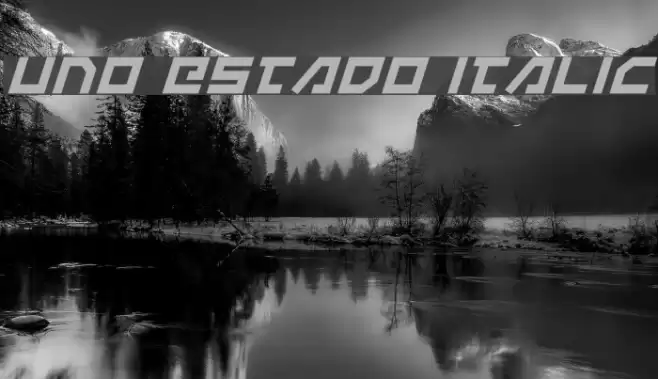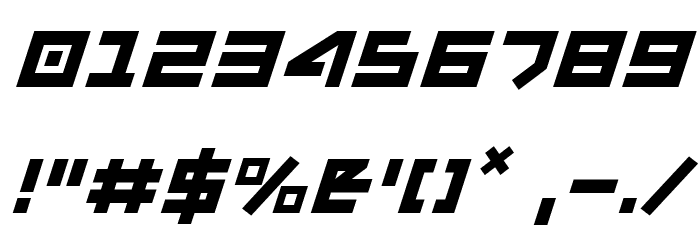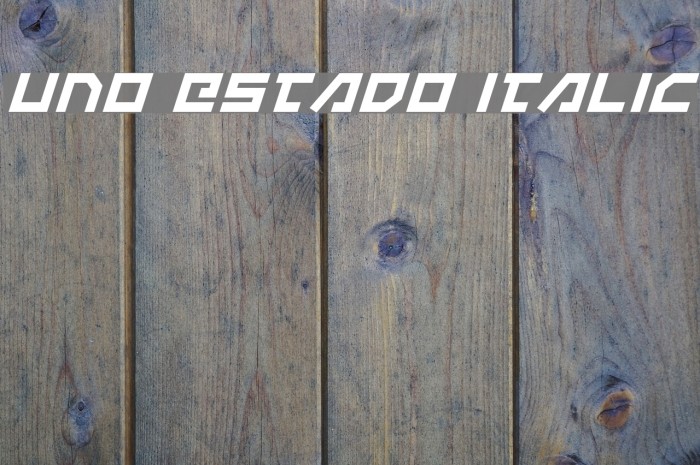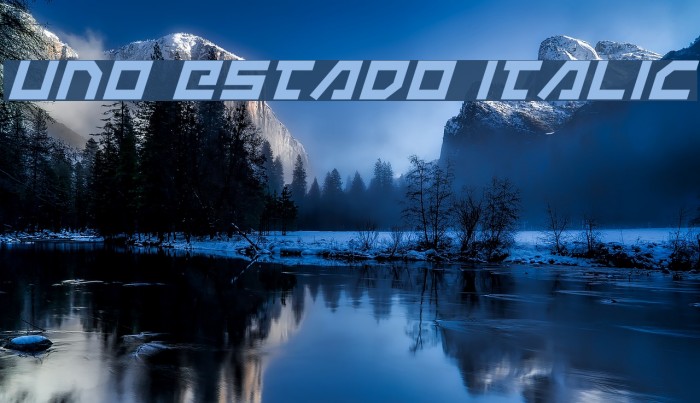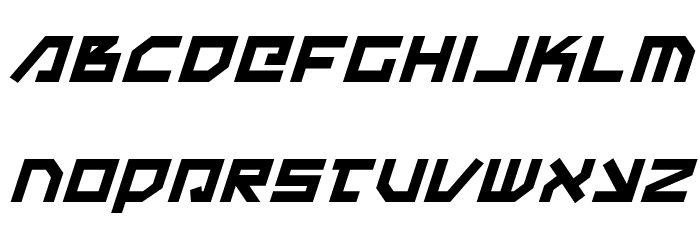
Uno Estado Italic Font
Uno Estado Italic Description
This font features a bold and dynamic italic style with sharp, angular edges and a futuristic appearance. The characters are slightly slanted, giving a sense of motion and energy. The uppercase and lowercase letters maintain a consistent geometric form, while the numbers and special characters align seamlessly with the overall design. The font's unique style makes it stand out, with each letterform crafted to convey a sense of speed and modernity.
A bold, angular italic font with a futuristic and dynamic style from Uncategorized fonts.
- Proposed Projects: Ideal for projects that require a modern and energetic look, such as tech branding, sports team logos, or sci-fi themed designs.